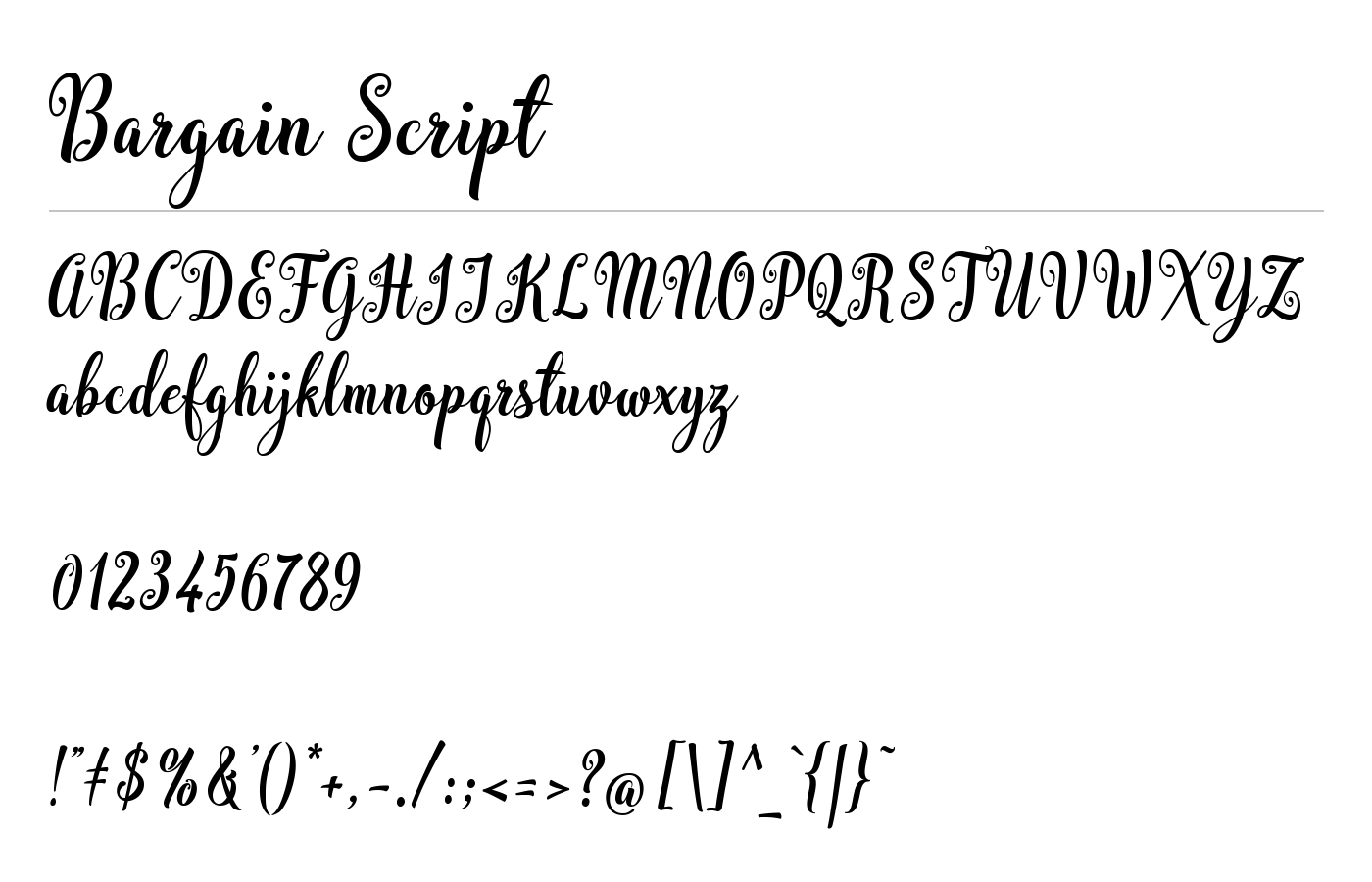
Bargain Script is an elegant, flowing script font characterized by its slender, medium-weight strokes and distinctive curled details on uppercase letters. Its high contrast and handwritten style give it a sophisticated yet approachable feel, making it perfect for branding, invitations, and stylish editorial projects. This font shines where a touch of personality and charm is desired, especially in logos and headings that need a refined, classy look.
Bargain Script Font
About Bargain Script Font
| Font family | Bargain Script Font |
| Designer | Darwinoo |